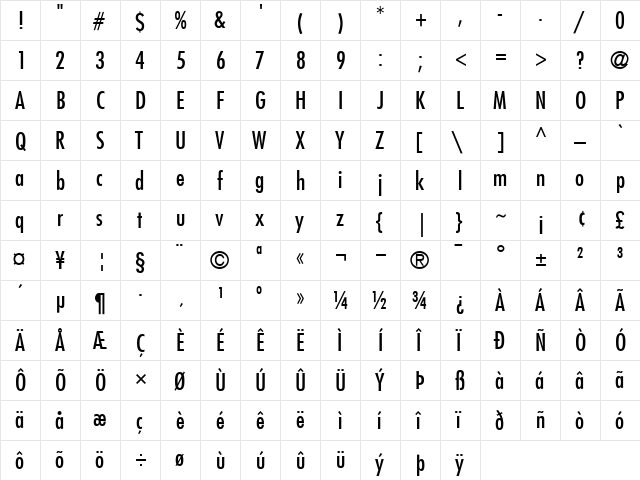
Futura-CondensedMedium Medium
Design Context for Futura-CondensedMedium Typeface
Futura-CondensedMedium channels digital-age aesthetics through its sharp, structured letterforms — ideal for brands that want to signal innovation. Its narrow stance lets it pack a punch even in space-constrained designs.
Pro Tip: Use Futura-CondensedMedium in combination with a neutral sans for body text. Let it define the brand voice in headlines while keeping reading comfortable elsewhere.